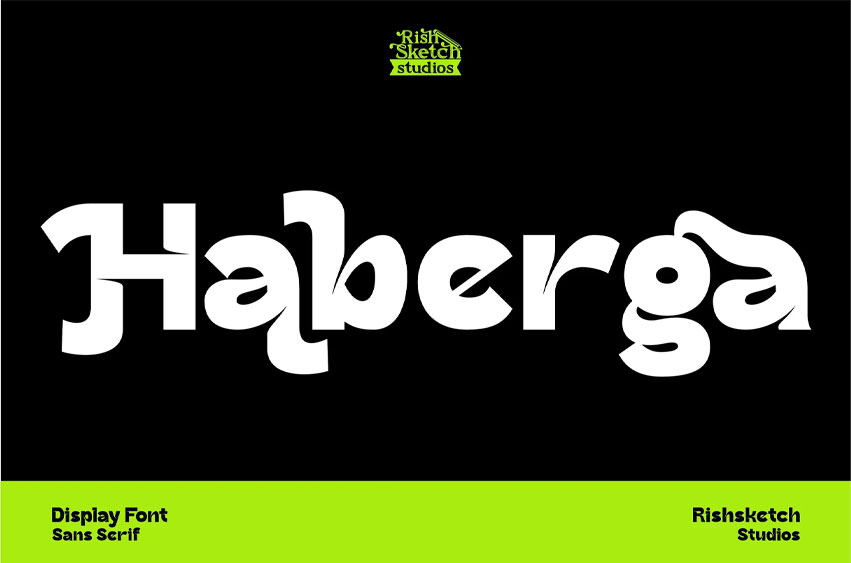
Haberga Font Sans Serif Display Font, from Rishsketch Studios, is a premium Sans Serif Display Font, perfect for any project that requires a distinctive, and premium feel.